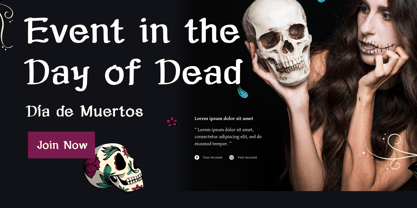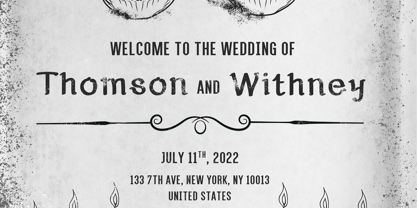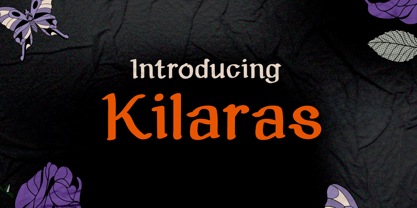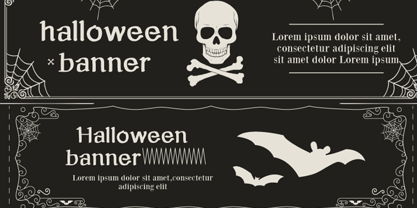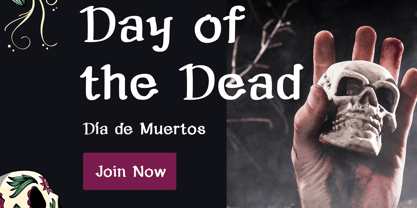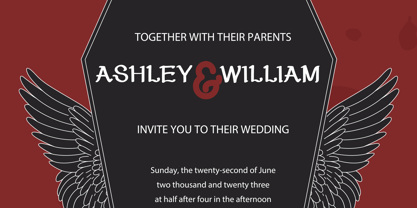
Kilaras
La familia tipográfica Kilaras fue diseñada por Amir Amir y publicada por Yavin Type. Kilaras contiene 1 estilos. Más información sobre esta familia
1. Font Style This font features a playful, decorative, and whimsical display style. The letterforms have rounded terminals and variable stroke thickness, giving them a cartoon-like, friendly, and informal appearance. Its organic shapes make the font visually engaging and suitable for creative or expressive designs. 2. Multilingual Support The typeface includes multilingual character coverage, making it suitable for use in various languages that rely on the Latin alphabet. This enhances its versatility across international branding, digital content, and design projects. 3. Font Function / Usage Purpose This font is designed primarily for display purposes, where personality and visual impact are important. It works well for: Logos and branding for playful or creative industries Children’s content (books, packaging, toys) Posters, titles, and headlines Social media graphics and expressive visual communication Because of its decorative nature, it is best used in short text, rather than long paragraphs. 4. Glyph Count The font contains 214 glyphs, covering essential characters, punctuation, and extended multilingual support.